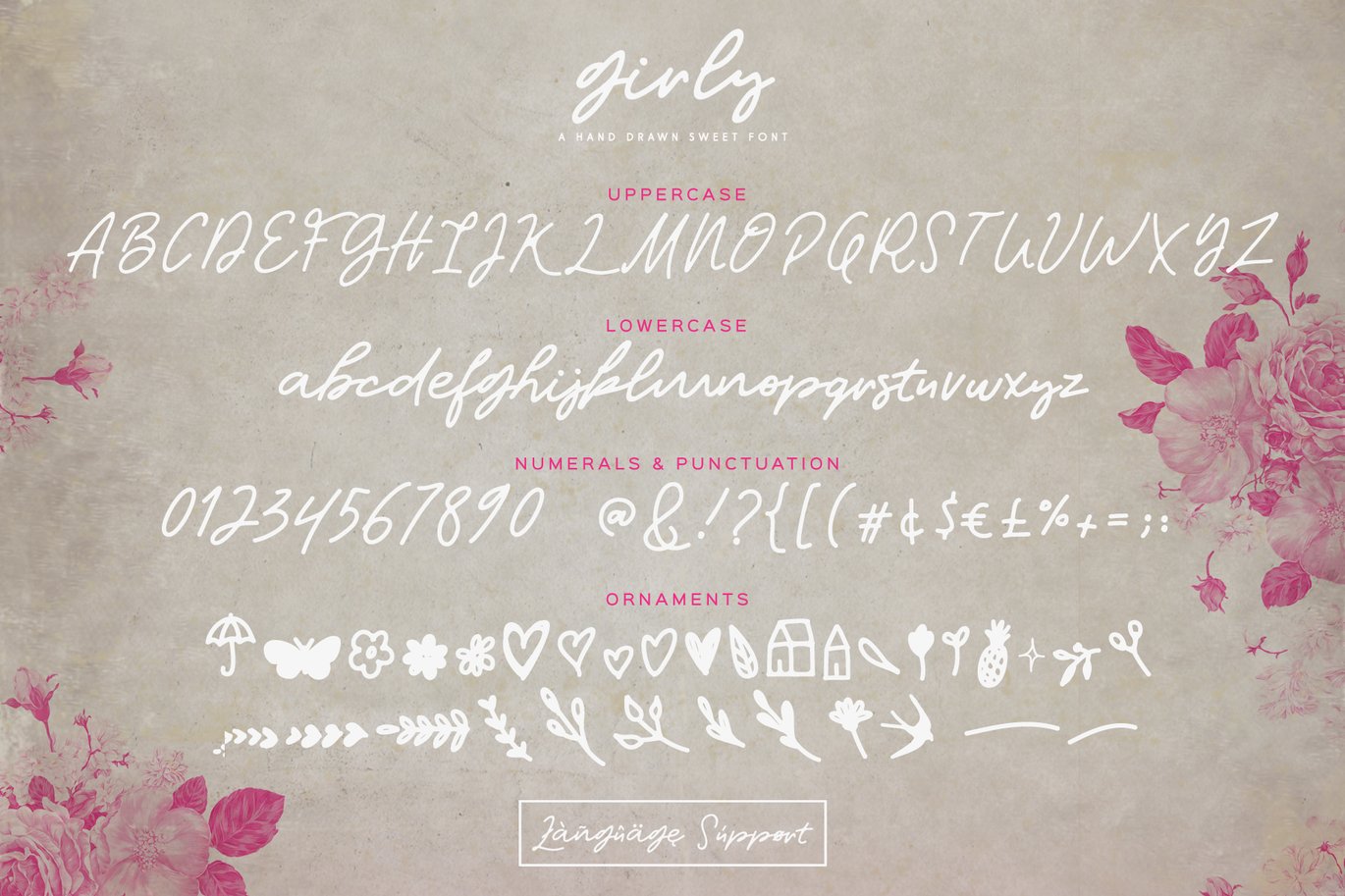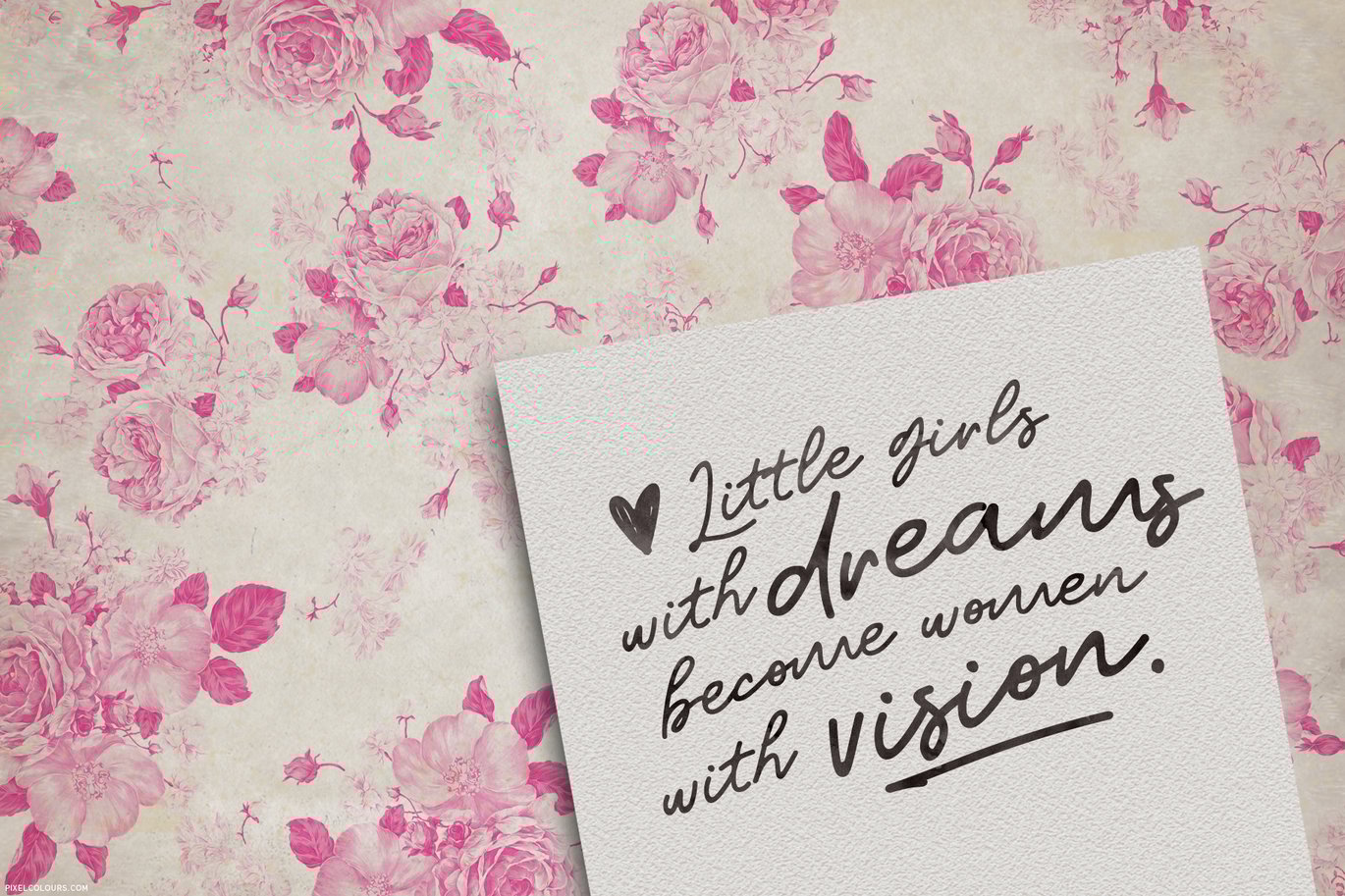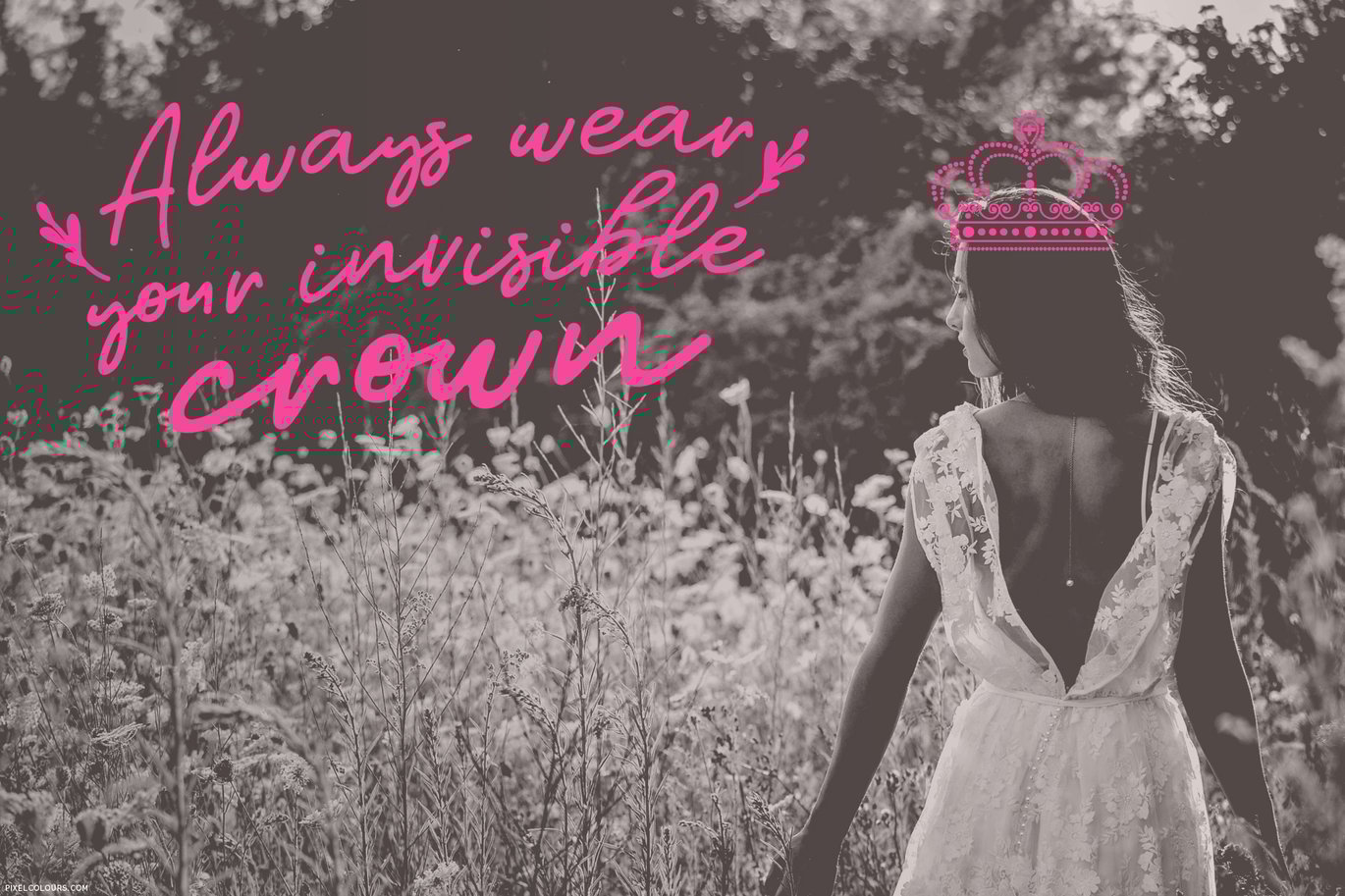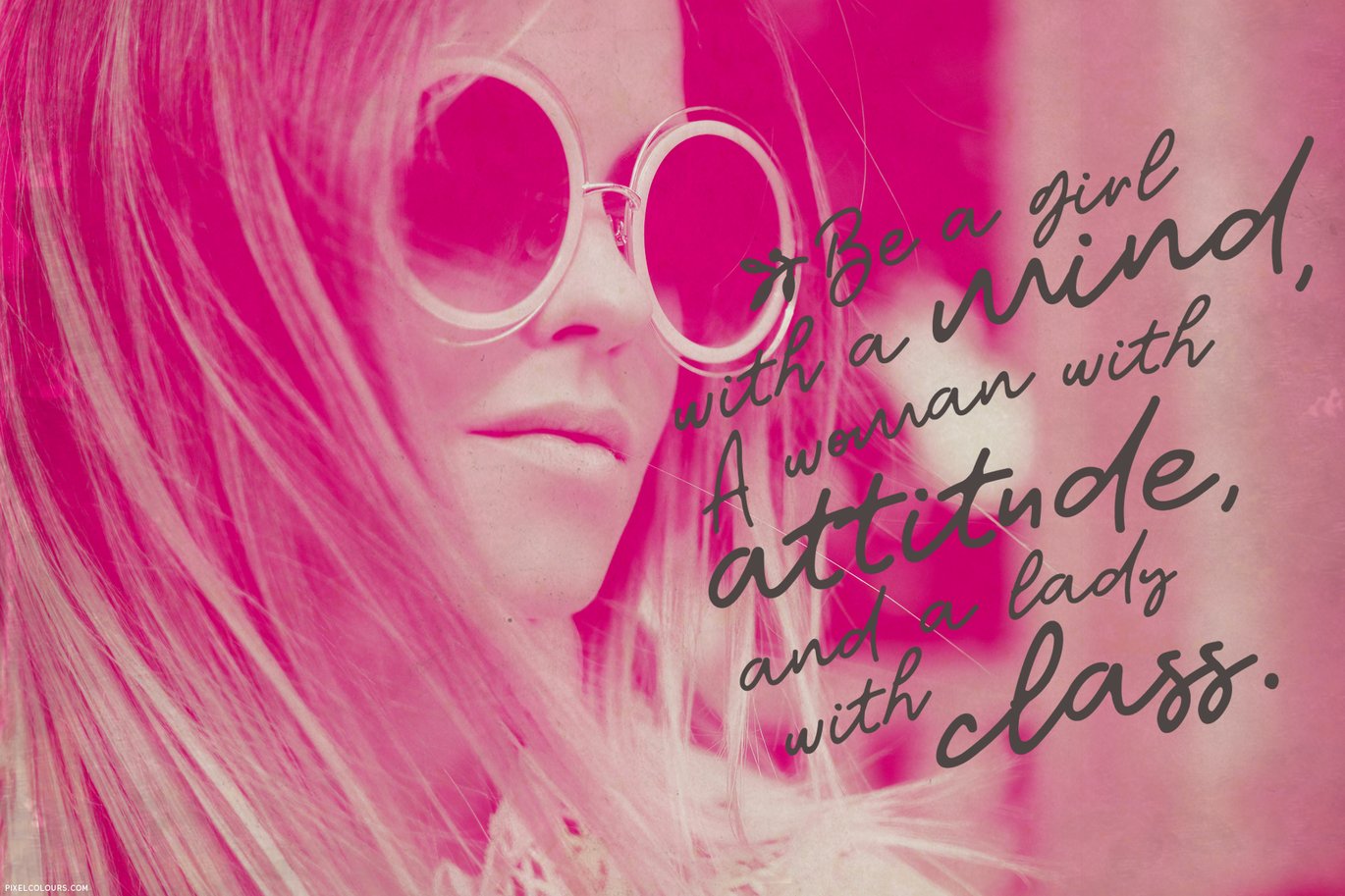
Girly Feminine Script Font
A girly script font with an imperfect touch but with a clean finish that makes it great for any project.
SO GIRLY!
Ideal to make quotes, greeting cards, wedding invitations or anything girly and modern.
ORNAMENTS
Give a sweet touch to your design by adding any of the ornaments included in a second font!